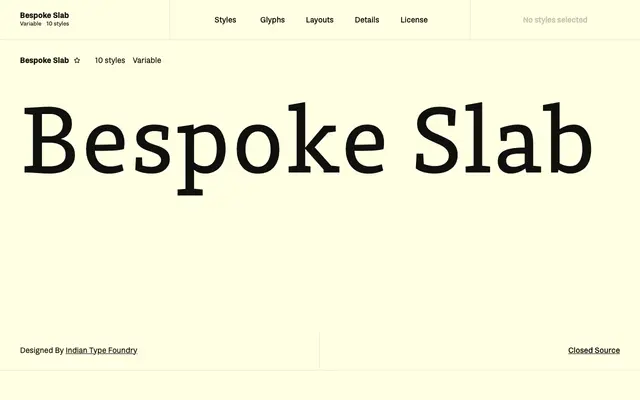
Bespoke Slab
Fontshare · Jérémie Hornus, Théo Guillard, Morgane Pambrun, Alisa Nowak, Joachim Vu · 2021
A humanist slab serif from Indian Type Foundry with five weights, matching italics and a variable axis, built around open counterforms and diagonal stroke endings drawn from broad-pen calligraphy.
Designed by a five-person team at ITF and released via Fontshare in 2021, Bespoke Slab uses large open counterforms to keep text legible across sizes, from body copy to poster work. Ascender tops cut at diagonal shears carry a subtle calligraphic reference through every weight, and the italic cuts swap double-storey 'a' and 'g' for single-storey forms. Proportionally-spaced oldstyle figures sit comfortably alongside the lowercase, making the family well suited to editorial, branding and wayfinding contexts.
Classified as a slab serif by the foundry itself; humanist in character with broad-pen references, open counterforms and diagonal stroke terminals typical of humanist slab construction.